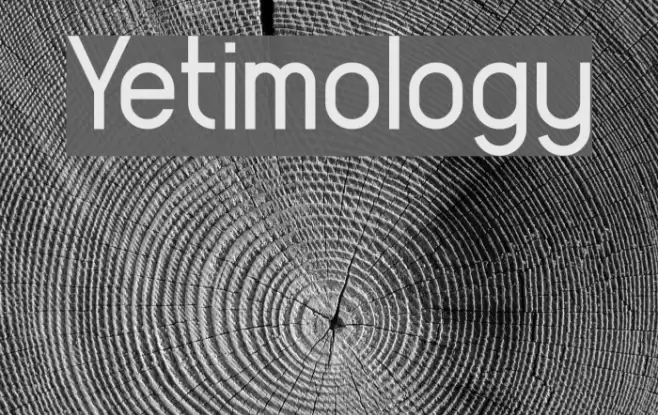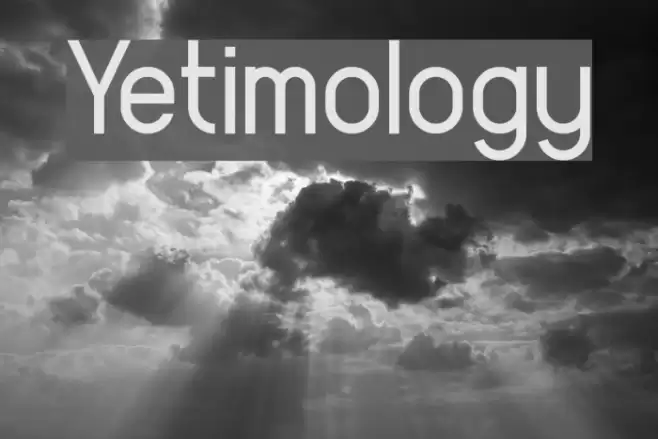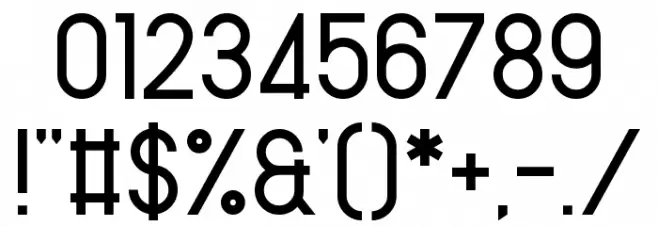
Yetimology Font
Yetimology Description
This font features a clean and modern sans-serif design, characterized by its geometric shapes and uniform stroke widths. The uppercase letters are bold and assertive, while the lowercase letters maintain a consistent and harmonious flow. The numerals are clear and easily distinguishable, making them suitable for various applications. Special characters are well-defined, adding versatility to the font. Its simplicity and clarity make it ideal for both digital and print media, ensuring readability across different sizes and formats.
A modern, geometric sans-serif font with clean lines and uniform strokes from Uncategorized fonts.
- Proposed Projects: Ideal for branding, web design, advertising, and editorial layouts.